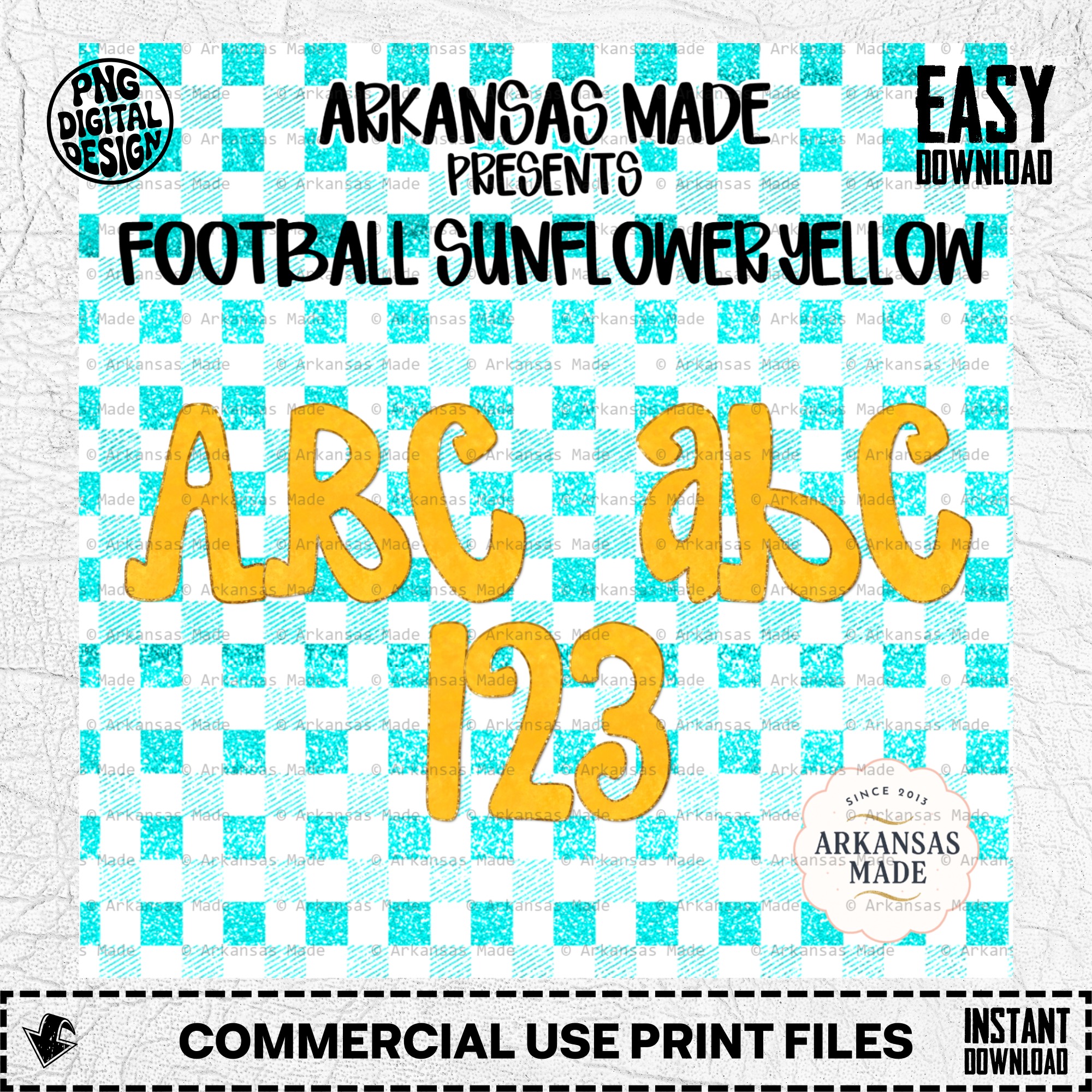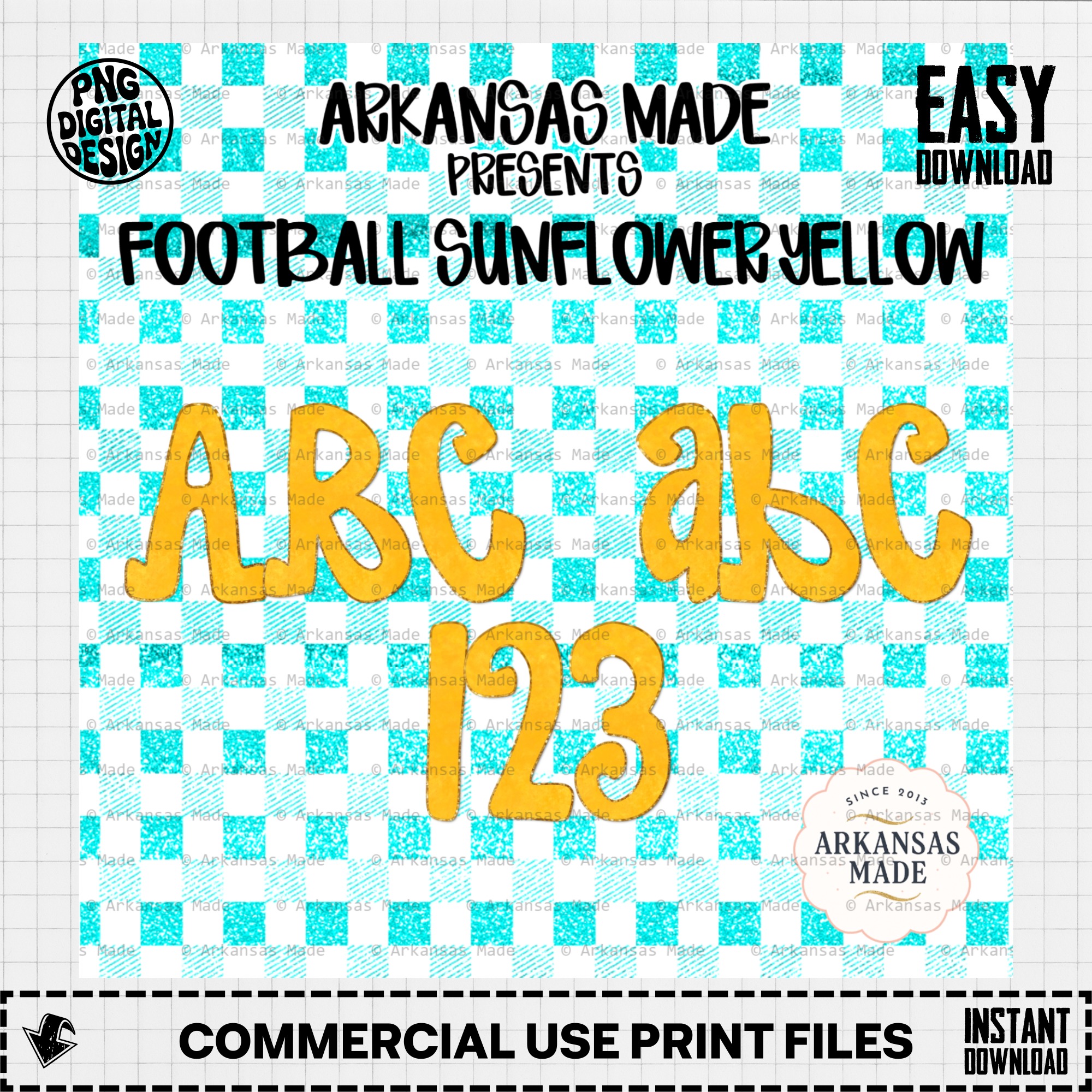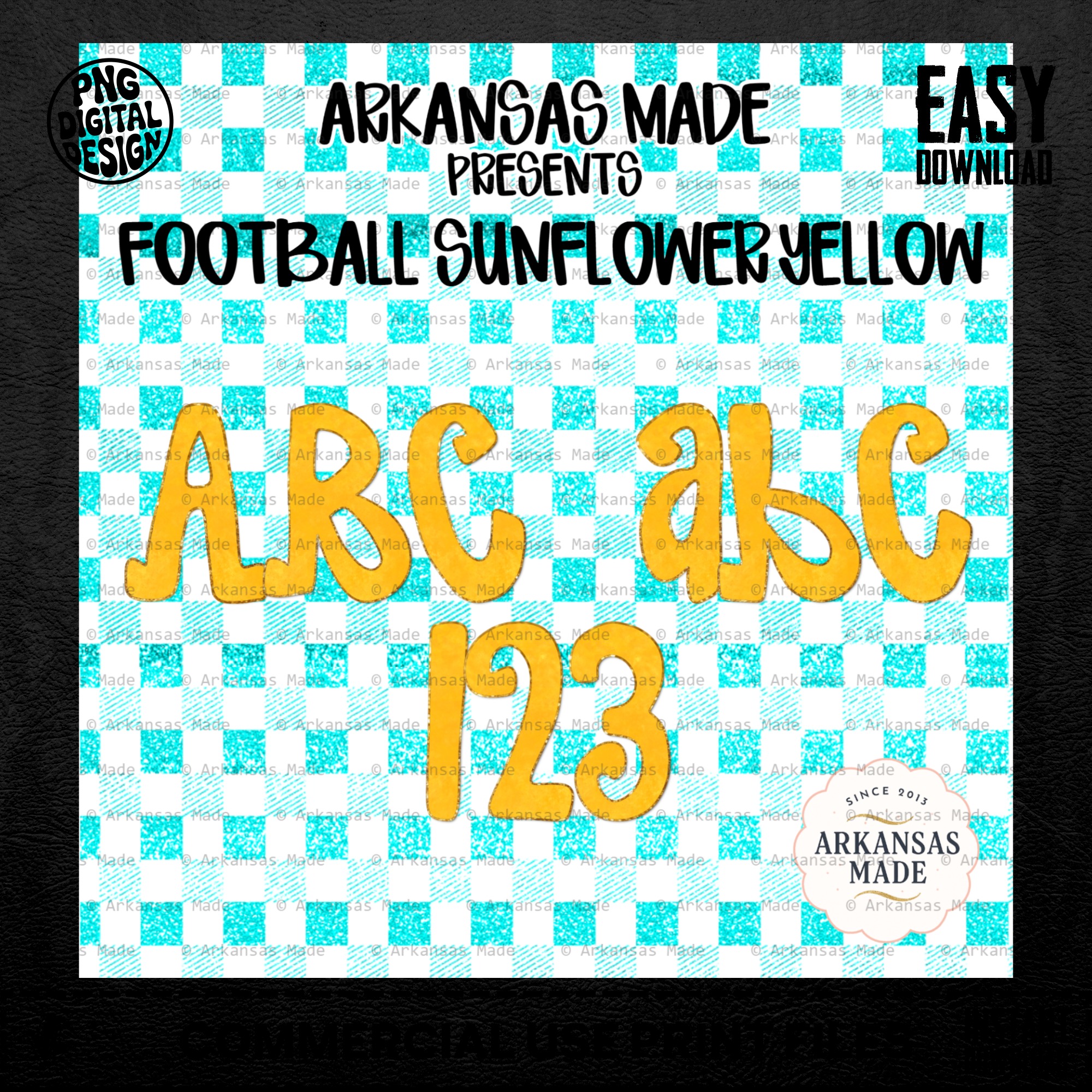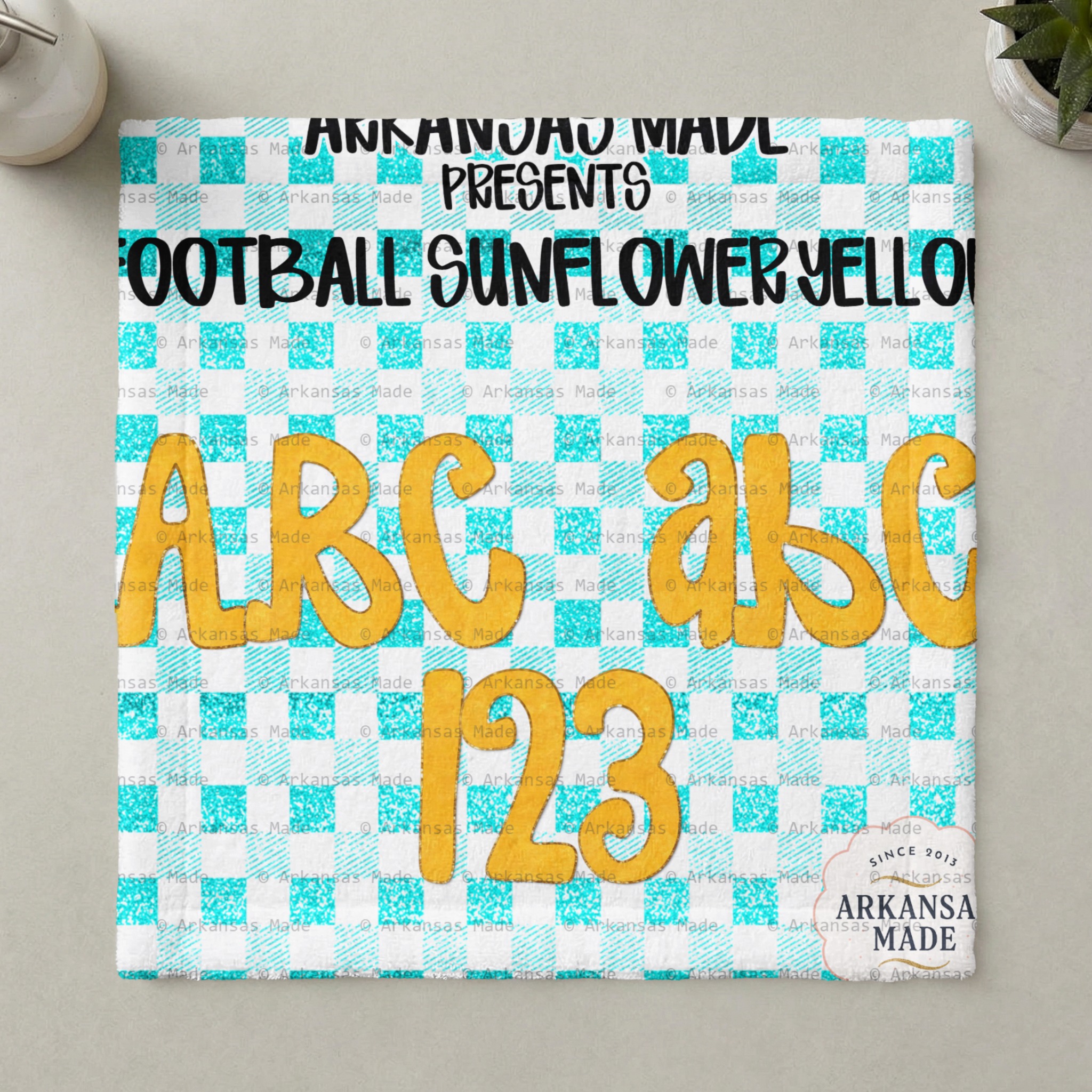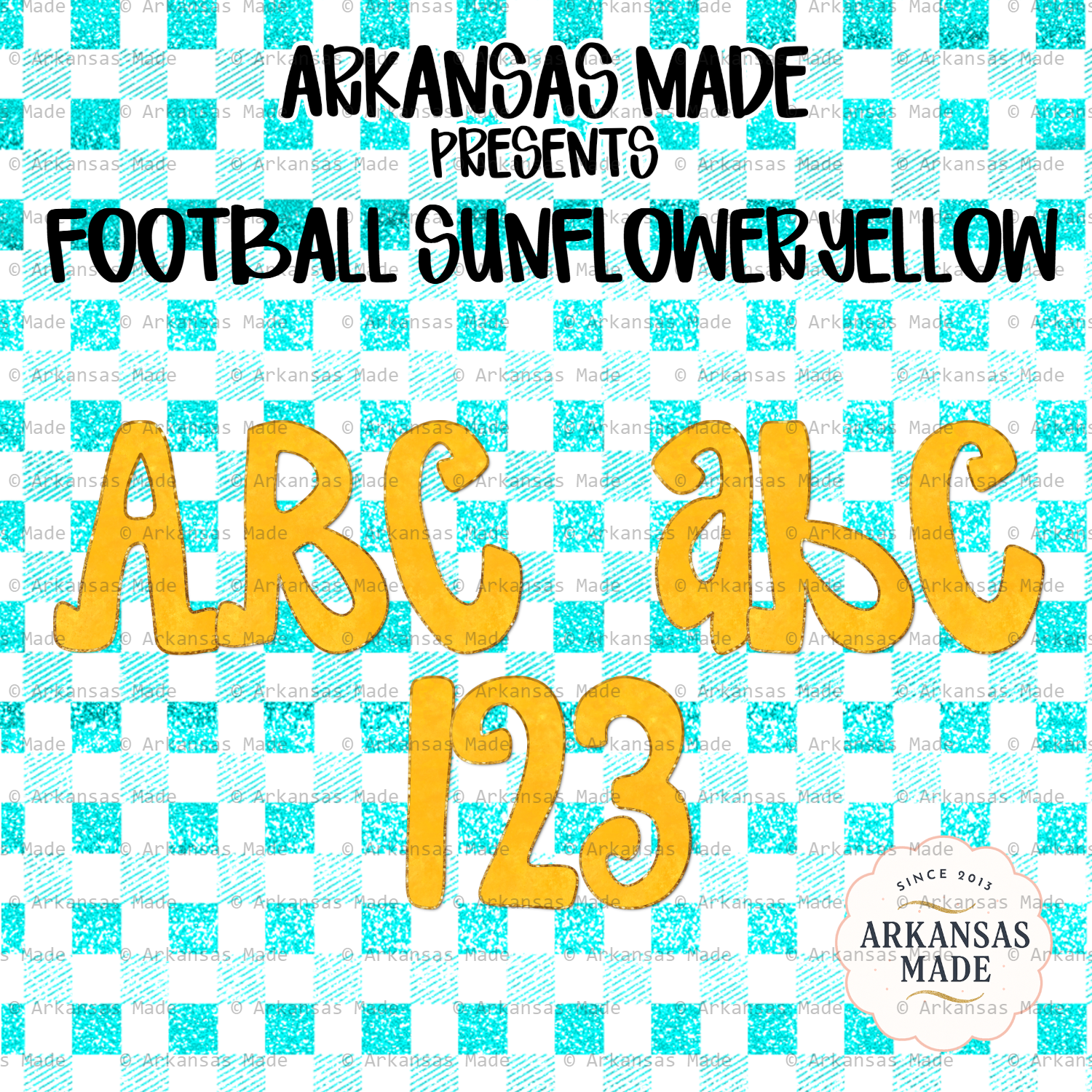
Elevate your designs with these Football Sunflower Yellow Digital Alpha PNGs! This textured alphabet and number set is perfect for distressed-look crafting. Infuse your creations with a warm, rustic, and sporty vibe, ideal for fall projects, team spirit wear, or personalized gifts. Perfect for crafters, small business owners, and DIY enthusiasts looking for unique sublimation or print-on-demand assets. Create custom t-shirts, mugs, decals, and more with instant download access and commercial use.